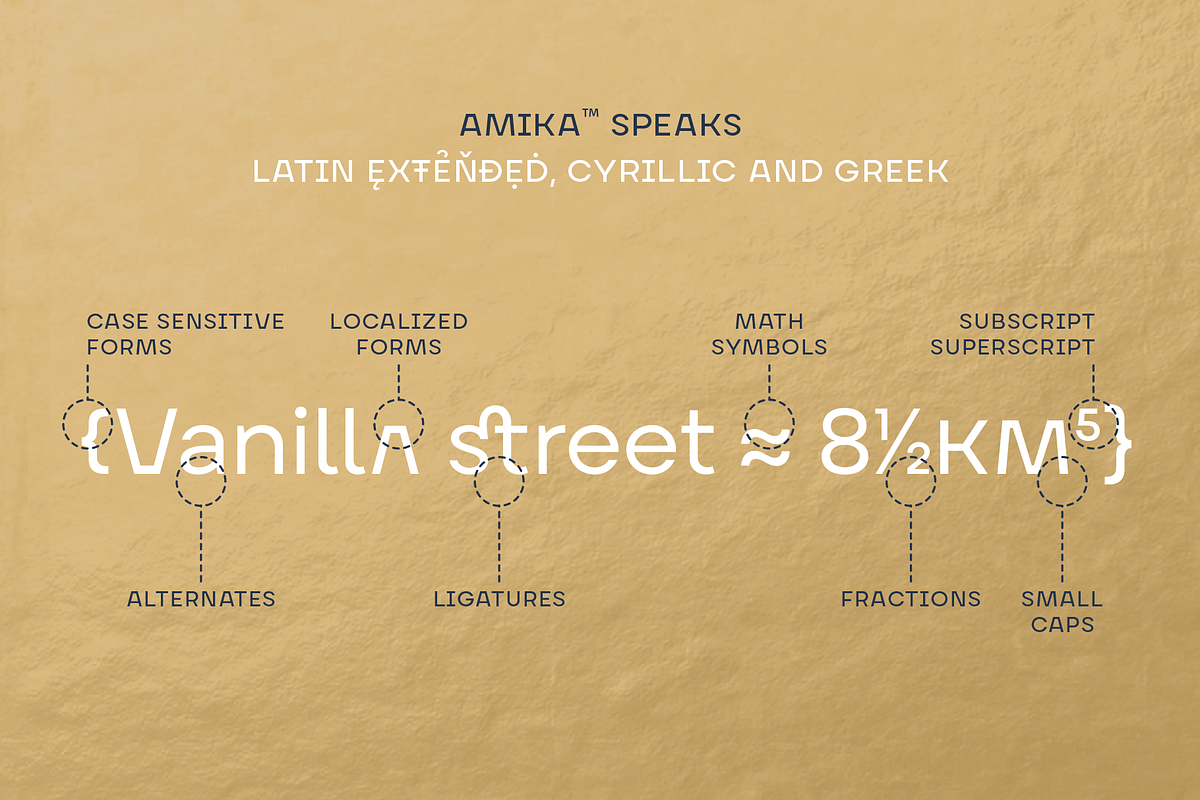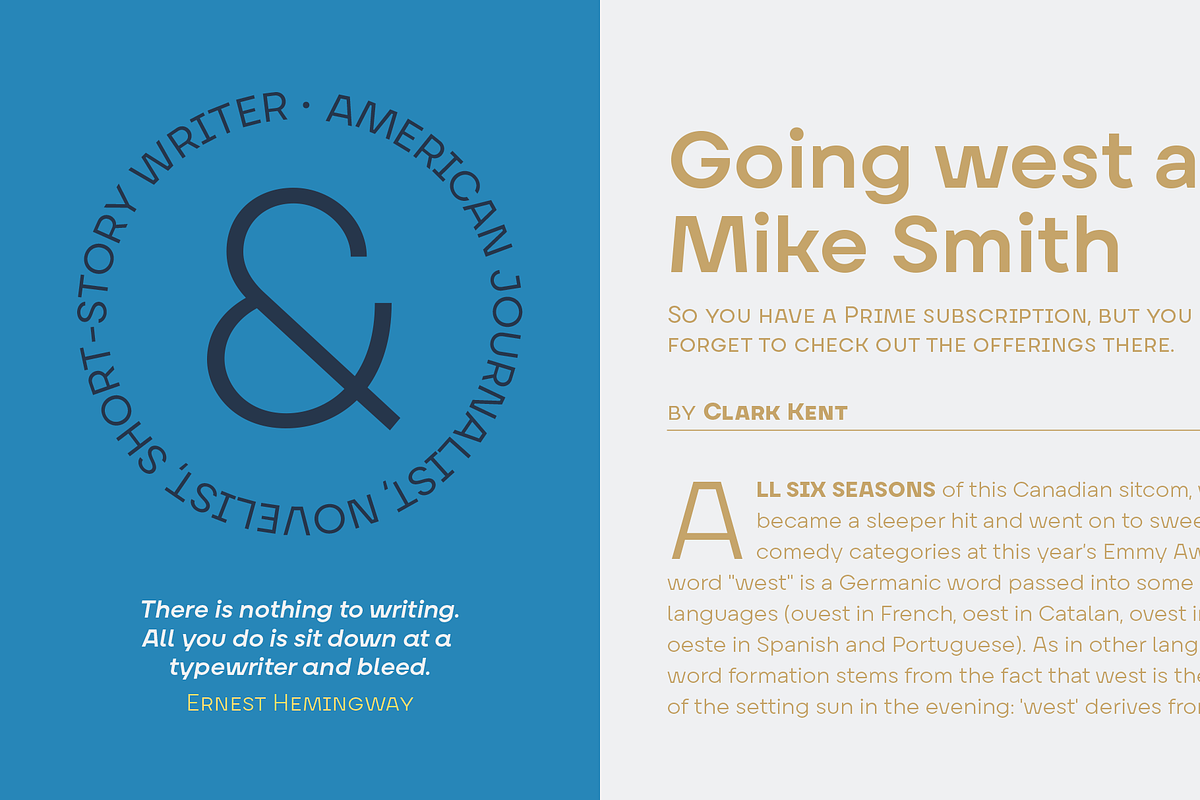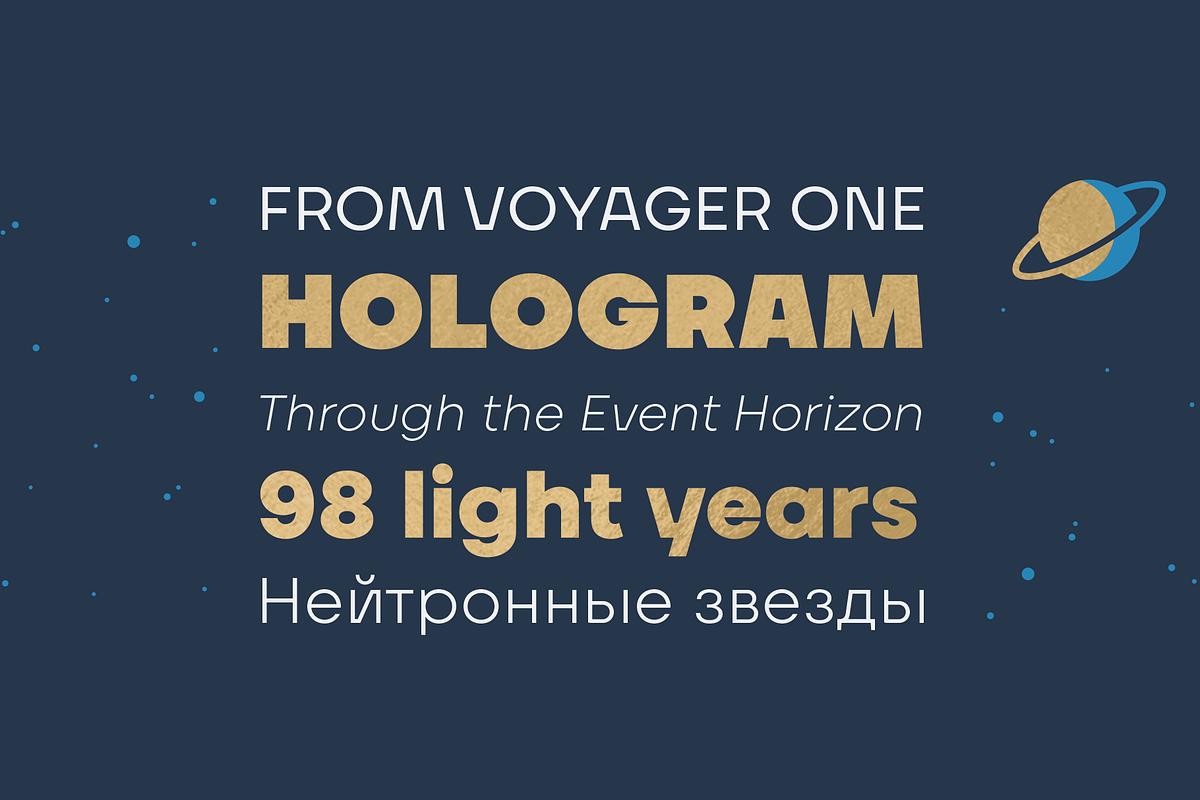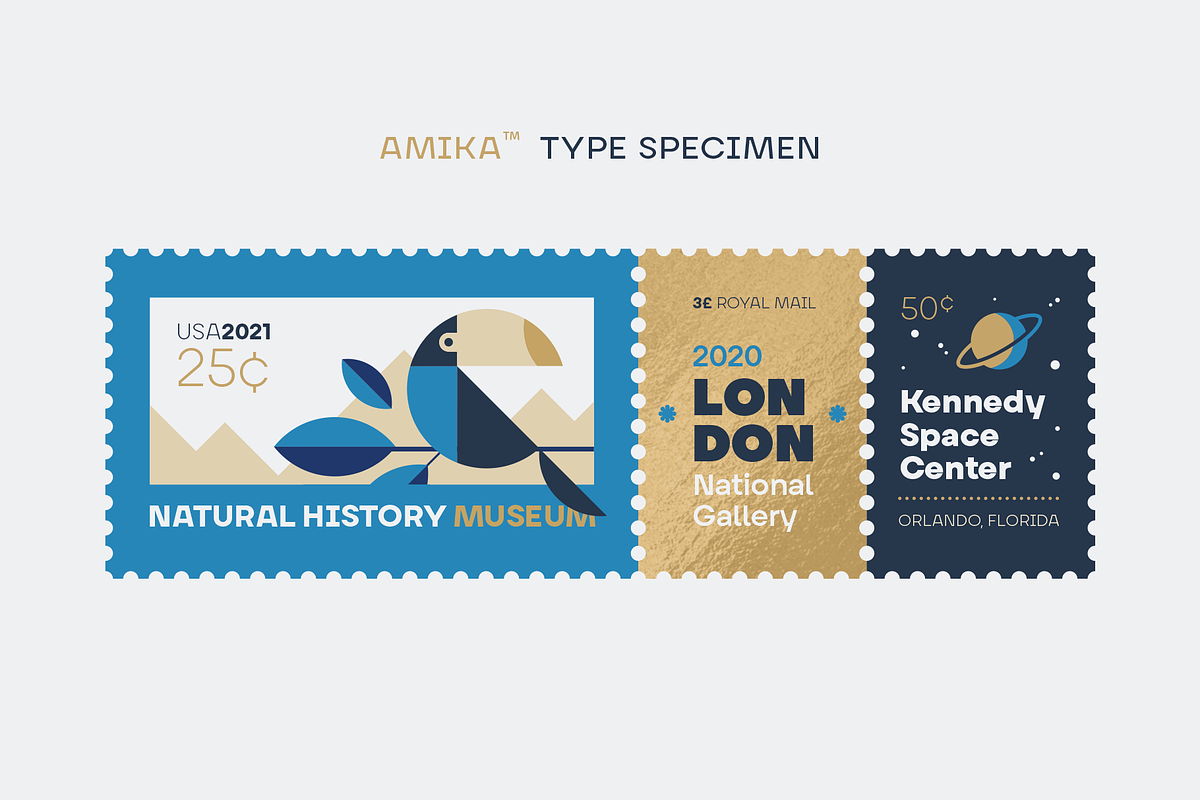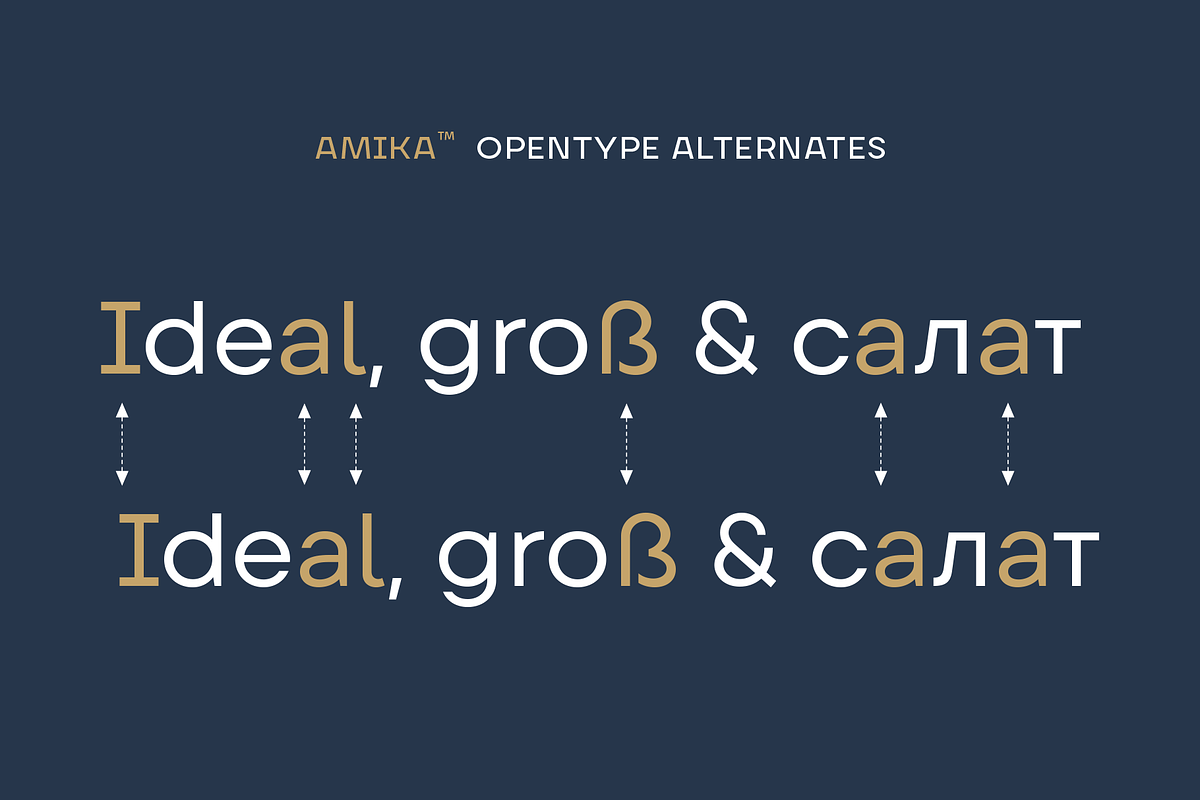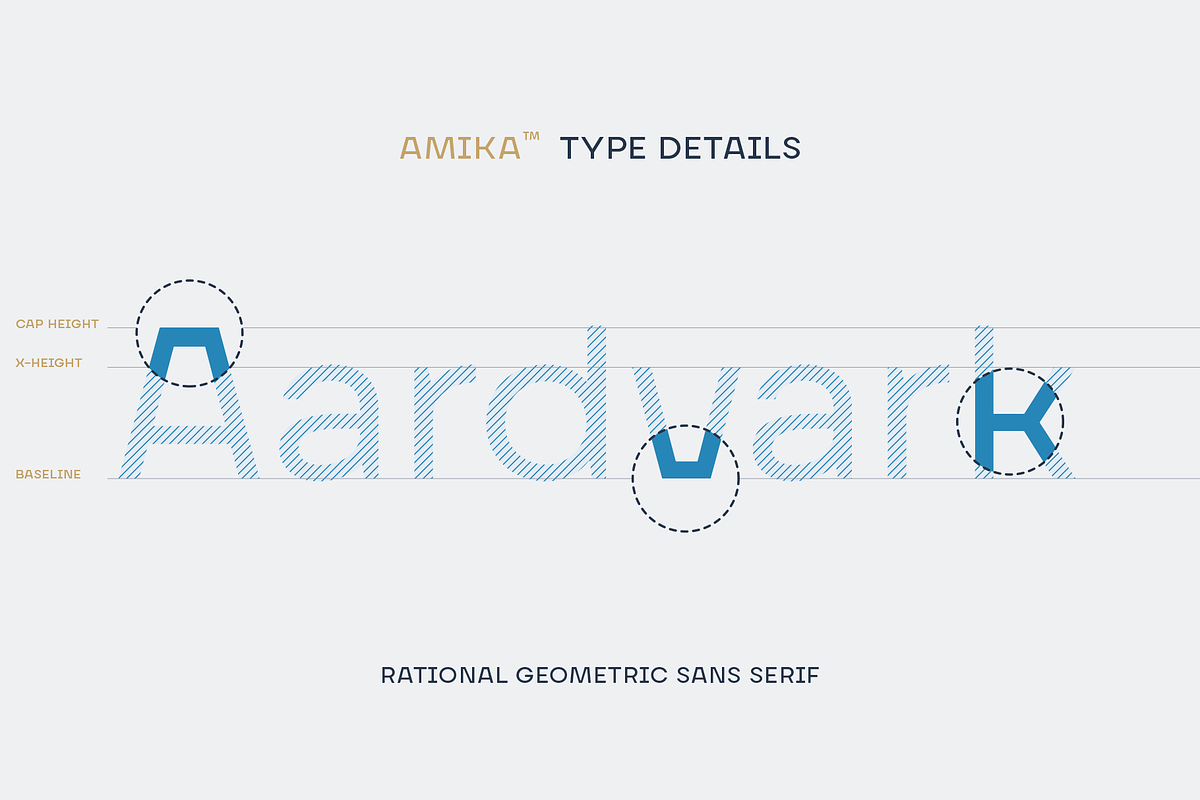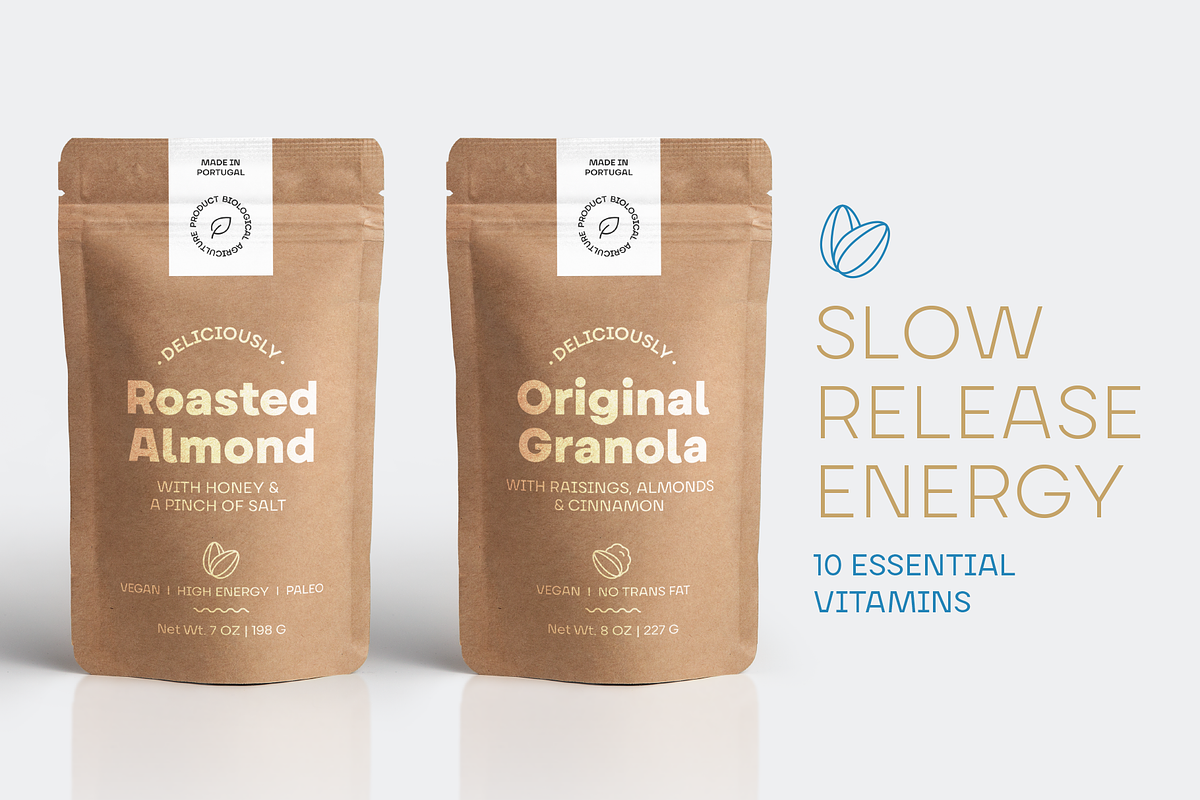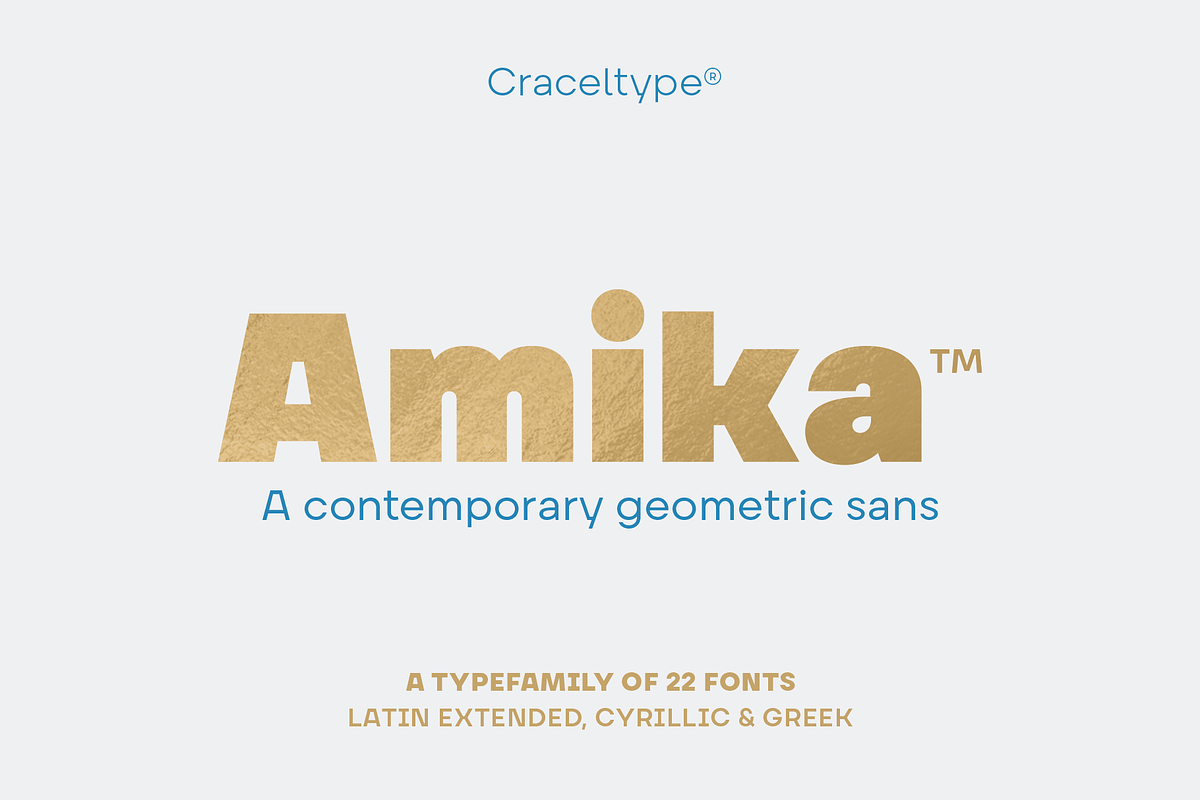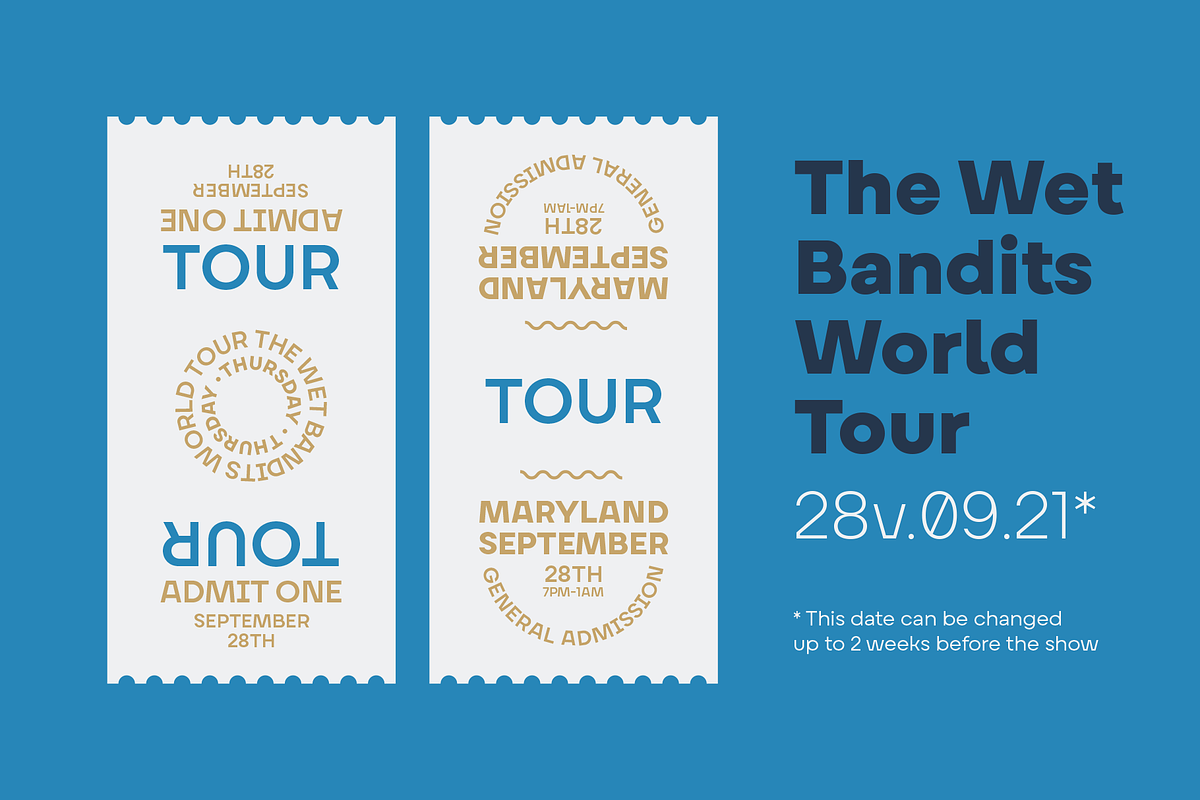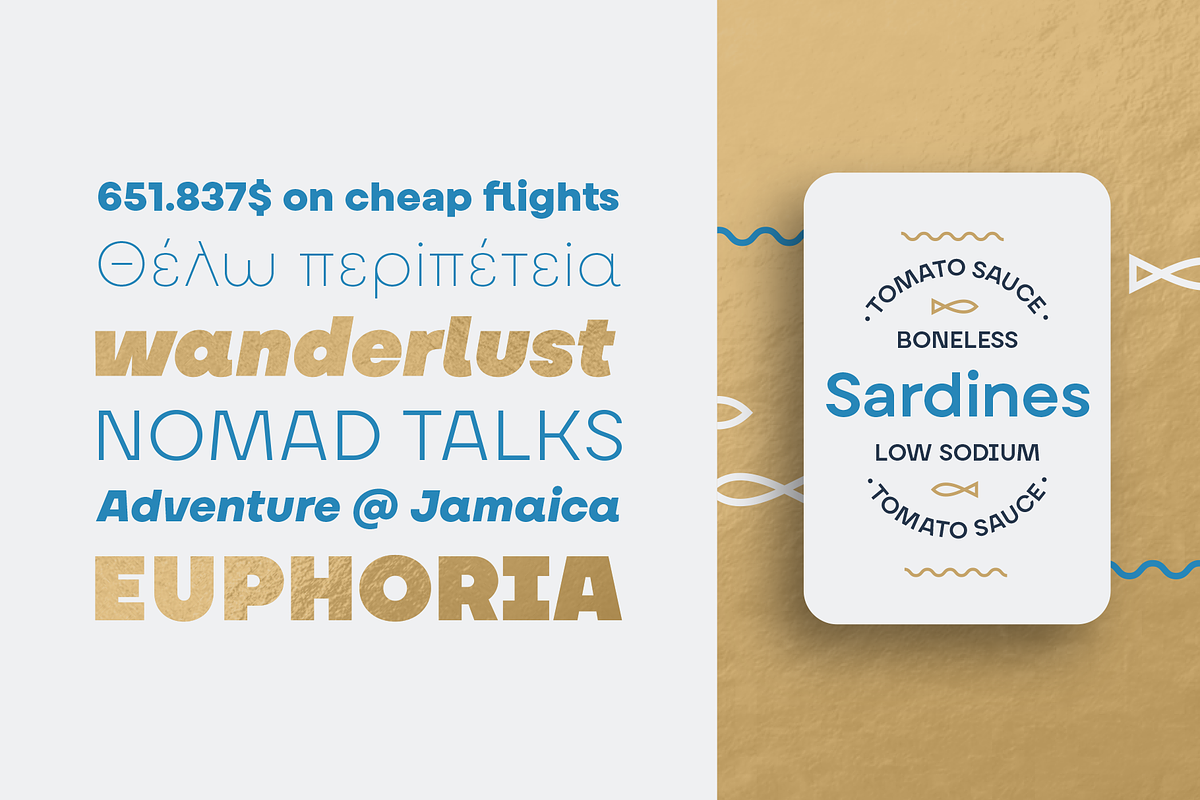
Amika
he first sketch emerged during the startup-crypto-media-unicorn-NFT-binge-watching-too-much-to-handle craze. Instead of yielding to word soup breakdowns, a type family gradually took shape as a project. The result was Amika, a prototypical sans-serif font embodying the essence of the New Media age.
It combines the clarity of a chiseled geometric sans with a contemporary touch, offering a fresh yet rational design. With a large x-height and excellent legibility, Amika ensures familiarity across its 22 styles. Each style boasts over 1200 glyphs, covering 230+ languages, including extended Latin, Cyrillic, and Greek, making Amika a valuable asset for all-purpose communication.